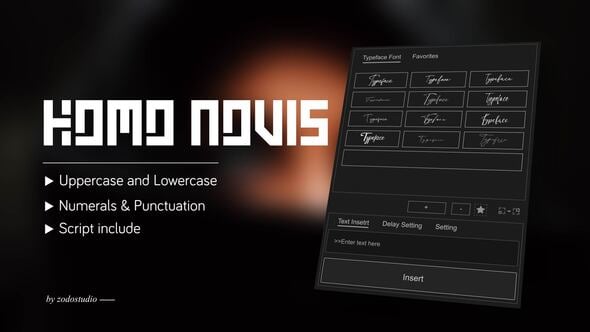
🔍 What is Homo Novis – Videohive 58780105 Animated Typeface?​
The Homo Novis Animated Typeface is a uniquely stylized animated text tool built to elevate your visual storytelling. With sleek motion design, full editability, and intuitive integration into Adobe After Effects and Premiere Pro, this typeface lets your text come to life with just a few clicks.
It’s part of a comprehensive collection of animated typefaces meticulously created to deliver quality, speed, and creative freedom. You’ll find this particular asset not just visually appealing, but also highly optimized for performance and usability.
🎯 Who Should Use This Typeface?​
Whether you're an experienced motion designer or a beginner testing the waters, Homo Novis is a must-have animated font style that can be used for:
• YouTube intros & outros
• Corporate video titles
• Promotional product showcases
• Short films or documentaries
• Social media ads and reels
This typeface is perfect if you're looking for something visually striking, modern, and highly adaptable to various types of content.
🧩 Features of Free Videohive 58780105 Animated Typeface – Homo Novis​
Editable TextFully customizable in After Effects – change fonts, size, color, spacing.
Color ControlsQuickly modify hues to fit your brand identity or design.
Smooth AnimationsClean motion and transition presets included.